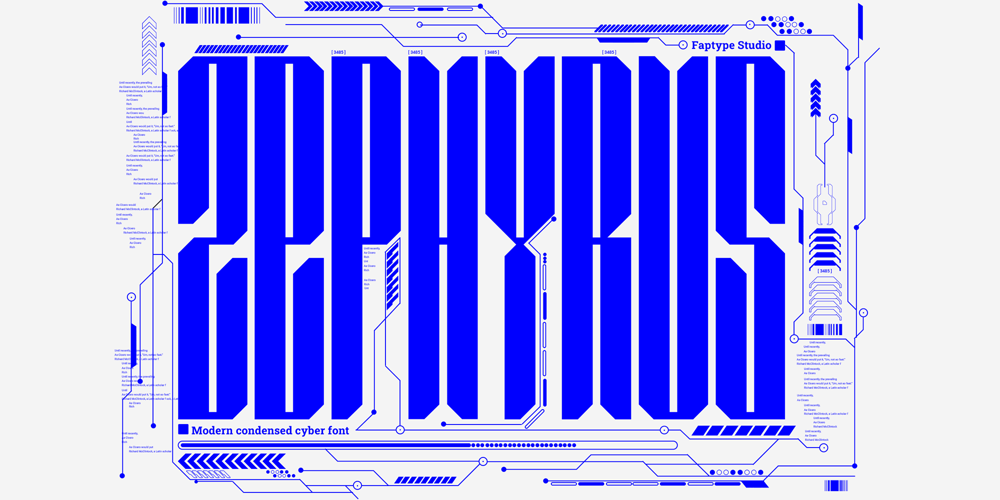
Zephyrus Cyber Font Family was designed by Ferry Ardana Putra and published by Ferry Ardana Putra. Zephyrus Cyber contains 8 styles and family package options. Introducing Zephyrus, our new condensed modern cyber font that’s designed to take your designs to the next level! With its unique condensed squared feel, this font is perfect for anyone looking to add a modern and futuristic touch to their work.But we didn’t stop there – we’ve also included a rounded version of Zephyrus, which softens the edges and provides a more approachable feel. This versatility means that you can use Zephyrus for a wide range of design projects, from logos and branding to websites and digital presentations.In addition, Zephyrus comes equipped with numerals, symbols, punctuation, and foreign language support, making it a versatile and functional font that’s suitable for global projects. Whether you’re creating a tech-based project or looking to add a futuristic touch to your branding, Zephyrus has you covered.Zephyrus is a great font for modern and futuristic designs. Its unique condensed squared feel and rounded version make it a versatile choice for a wide range of design applications.Here are some perfect use cases for Zephyrus font: Technology-based websites and apps: Zephyrus is an excellent choice for designing websites and apps that focus on technology and innovation. Its modern and futuristic design complements the content of these websites and apps and creates an atmosphere of innovation. Corporate branding: Zephyrus can be used to create a modern and innovative corporate branding identity for companies in the technology and innovation sectors. It is perfect for creating logos, letterheads, business cards, and other branded materials. Advertising campaigns: Zephyrus is perfect for advertising campaigns that require a futuristic or high-tech look and feel. It can be used in print ads, online ads, and other promotional materials to create a sense of innovation and modernity. Product packaging: Zephyrus can be used to create packaging designs for technology-based products. Its modern and futuristic design can help these products stand out on shelves and create an impression of innovation and quality. Presentations: Zephyrus is a great choice for creating compelling and modern presentations. Its unique design can add an element of creativity and innovation to your presentations and help you stand out from the competition. Video game design: Zephyrus can be used to create a video game design that requires a futuristic or cyberpunk style. Its unique design can help create an immersive gaming experience for players. In conclusion, Zephyrus is the perfect choice for anyone looking for a condensed modern cyber font that’s both versatile and functional. With its squared feel, rounded version, and support for numerals, symbols, punctuation, and foreign languages, Zephyrus is a font that’s sure to take your designs to the next level!Zephyrus features: A full set of uppercase Numbers and punctuation Multilingual language support PUA Encoded Characters OpenType Features Cyber Style +278 Total Glyphs ⚠️To enable the OpenType Stylistic alternates, you need a program that supports OpenType features such as Adobe Illustrator CS, Adobe InDesign & CorelDraw X6-X7, Microsoft Word 2010, or later versions. There are additional ways to access alternates/swashes, using Character Map (Windows), Nexus Font (Windows), Font Book (Mac) or a software program such as Pop Char (for Windows and Mac).⚠️For more information about accessing alternatives, you can see this link: http://adobe.ly/1m1fn4Y———🔑Important tutorial from the author:Tutorial for Mollusca font trio: https://lnkd.in/d984CQD6How to use Midway | Retro Script Font on illustrator: https://lnkd.in/eusbZd7sHow to use Midway | Retro Script Font on Photoshop: https://lnkd.in/evsYrwgsHow to use Hellfire Flames | Death Metal Font on Photoshop: https://www.youtube.com/watch?v=Z0MSBYzl9EM&t=35sHow to use Rusted Sabbath | Black Metal Font Font on Photoshop: https://www.youtube.com/watch?v=_BTTgnSszsM&t=6sHow to use Black Dread | Death Metal Font on Photoshop: https://www.youtube.com/watch?v=cKoSvIEbdZ4———🔥 Thank you for purchasing our product, hope you like it and have fun with our product. If you have any queries, questions, or issues, please don’t hesitate to contact us directly. If you are satisfied with our product, please give 5 stars rating.———Happy Designing…😊